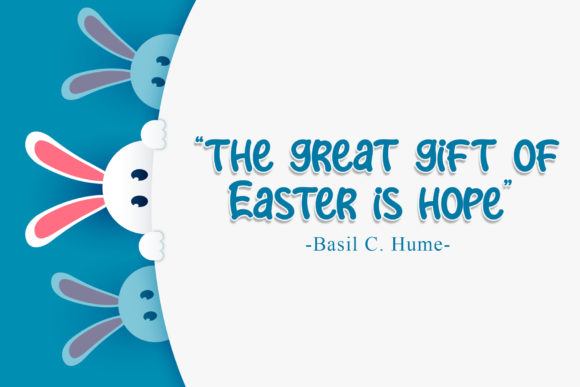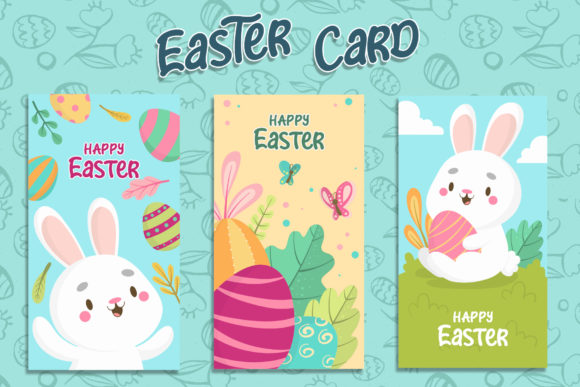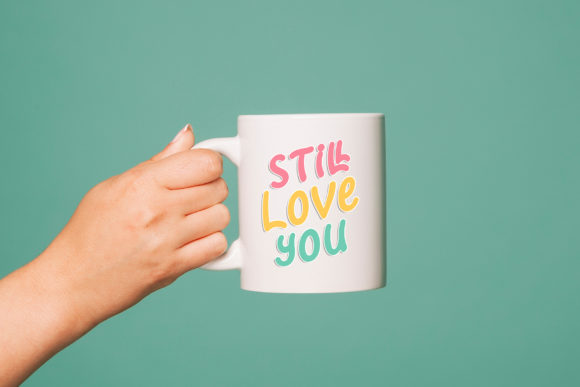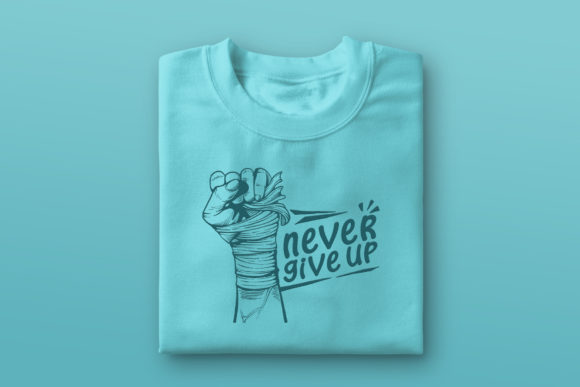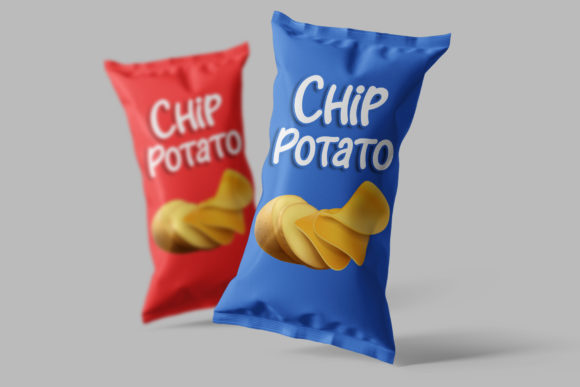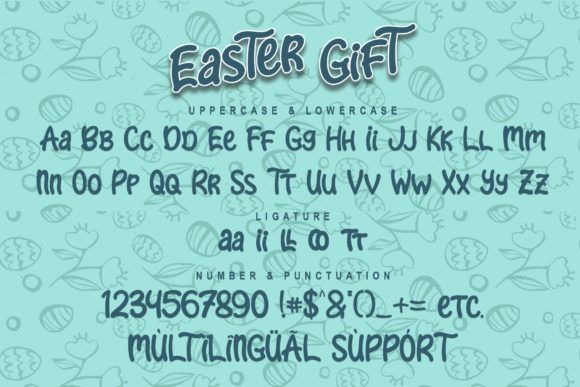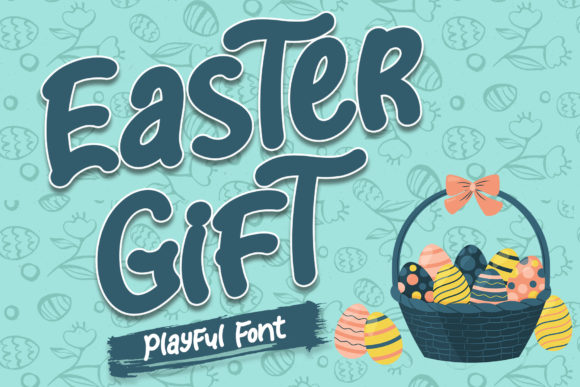
Easter Gift Font: The Perfect Addition to Your Design Arsenal
Are you a designer or crafter looking for a fun and playful font to add to your collection? Look no further than Easter Gift Font! This adorable display font is perfect for a variety of projects, from cards and branding to stationery and blog design. In this article, we’ll take a closer look at Easter Gift Font and explore its many uses.
What is Easter Gift Font?
Easter Gift Font is a display font that boasts a cute and playful style. Its great readability makes it an excellent choice for a wide range of applications. Whether you’re creating custom art, quotes, or headlines, this font is sure to add a touch of whimsy and fun to your designs.
Characteristics of Easter Gift Font
Easter Gift Font has several characteristics that make it an excellent addition to your design arsenal. Some of its key features include:
• Cute and playful style: Easter Gift Font has a unique and charming style that’s perfect for Easter-themed designs or any project that requires a touch of playfulness.
• Great readability: The font’s clear and legible design makes it easy to read, even at smaller sizes.
• Versatility: Easter Gift Font can be used for a wide range of projects, from cards and stationery to blog design and custom art.
Uses for Easter Gift Font
Easter Gift Font is a versatile font that can be used for a variety of projects. Here are some ideas to get you started:
• Cards and invitations: Create adorable Easter cards, invitations, and gift tags with Easter Gift Font.
• Branding and packaging: Use Easter Gift Font to add a touch of whimsy to your brand’s packaging and marketing materials.
• Stationery and journals: Create custom stationery, journals, and planners with Easter Gift Font.
• Blog design: Add a playful touch to your blog’s design with Easter Gift Font.
• Custom art and quotes: Use Easter Gift Font to create custom art, quotes, and posters.
• Apparel and accessories: Create custom apparel, accessories, and merchandise with Easter Gift Font.
Tips for Using Easter Gift Font
Here are some tips for getting the most out of Easter Gift Font:
• Experiment with sizes and colors: Easter Gift Font looks great at a variety of sizes and colors. Experiment with different combinations to find the one that works best for your project.
• Pair with other fonts: Easter Gift Font pairs well with other fonts, such as sans-serif fonts or script fonts. Experiment with different pairings to find the one that works best for your project.
• Use for headlines and titles: Easter Gift Font is perfect for headlines and titles. Use it to add a touch of whimsy and fun to your designs.
Easter Gift Font is a fun and playful display font that’s perfect for designers and crafters. Its cute style and great readability make it an excellent choice for a wide range of projects. Whether you’re creating cards, branding, stationery, or custom art, Easter Gift Font is sure to add a touch of whimsy and fun to your designs. So why not give it a try and see what amazing creations you can come up with?